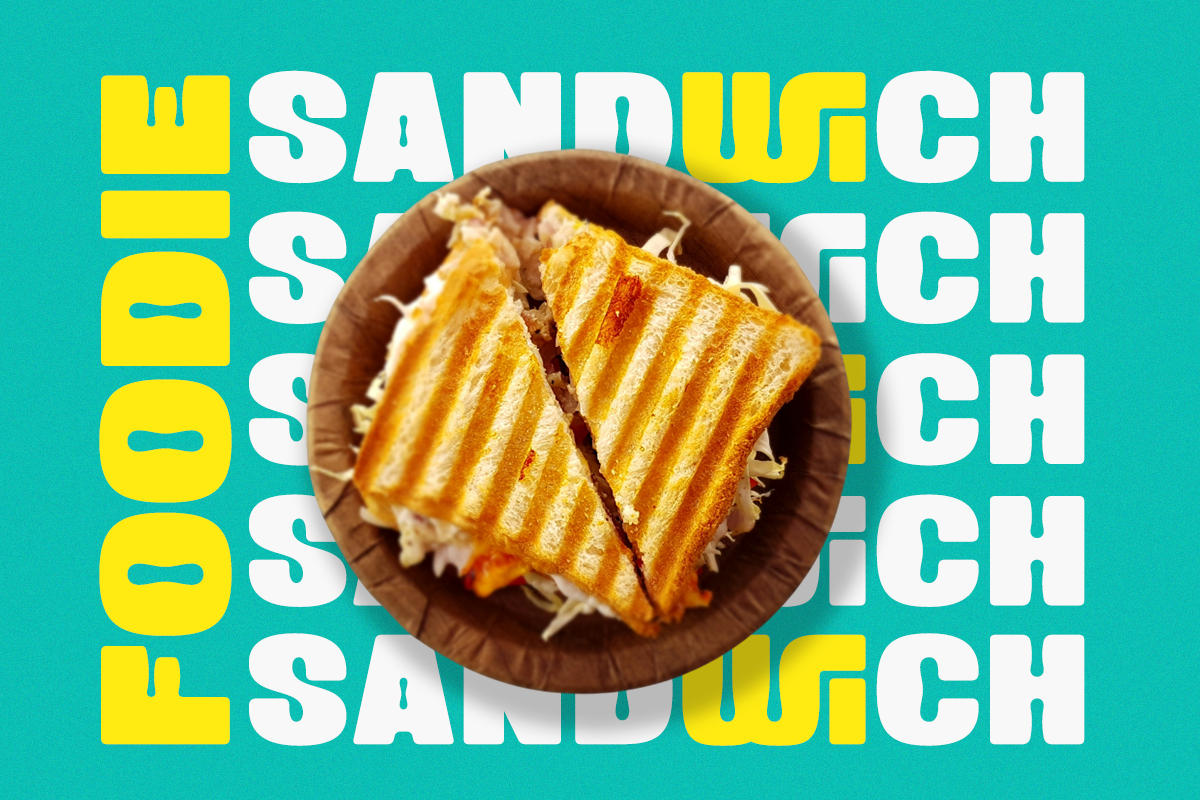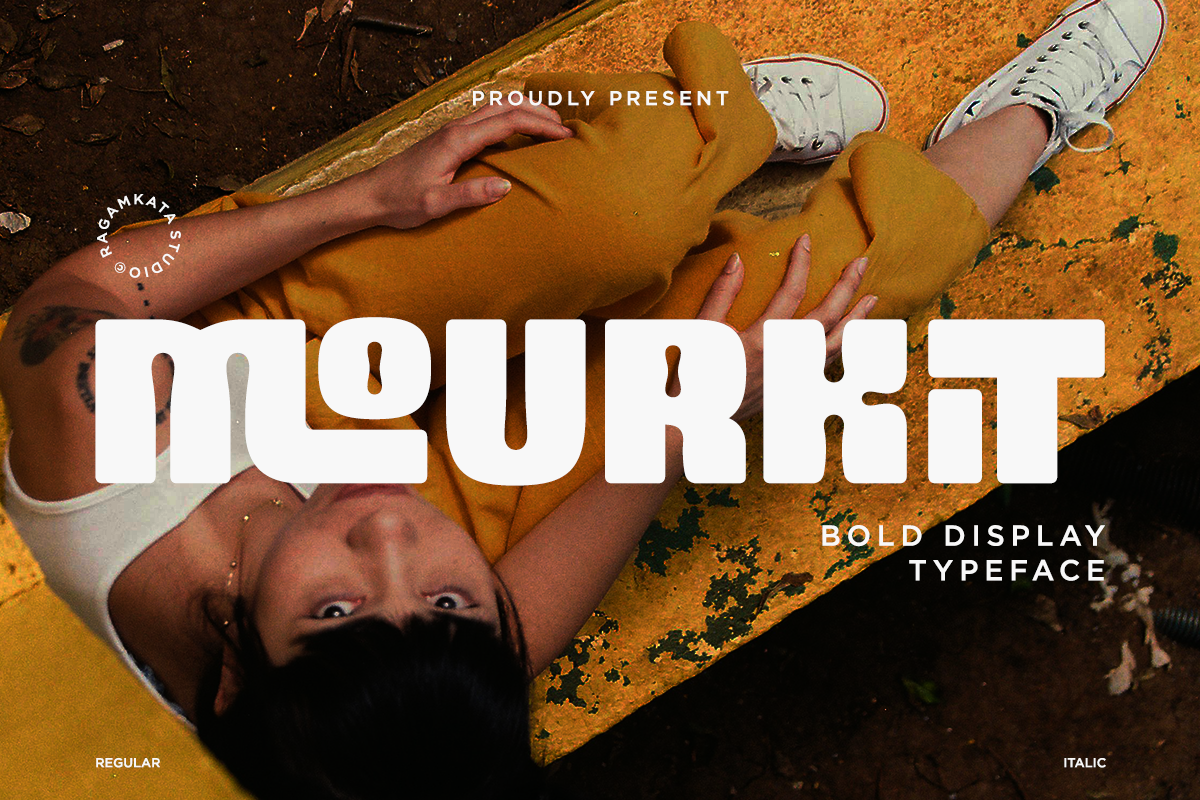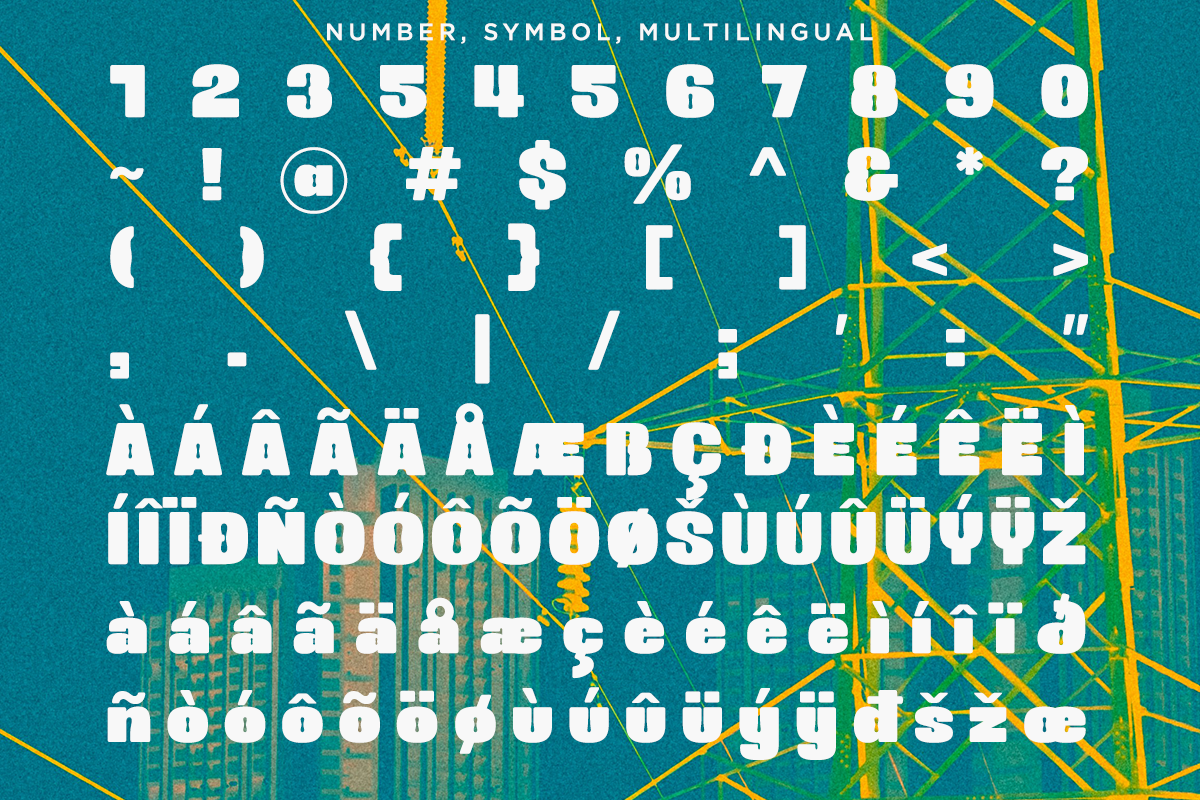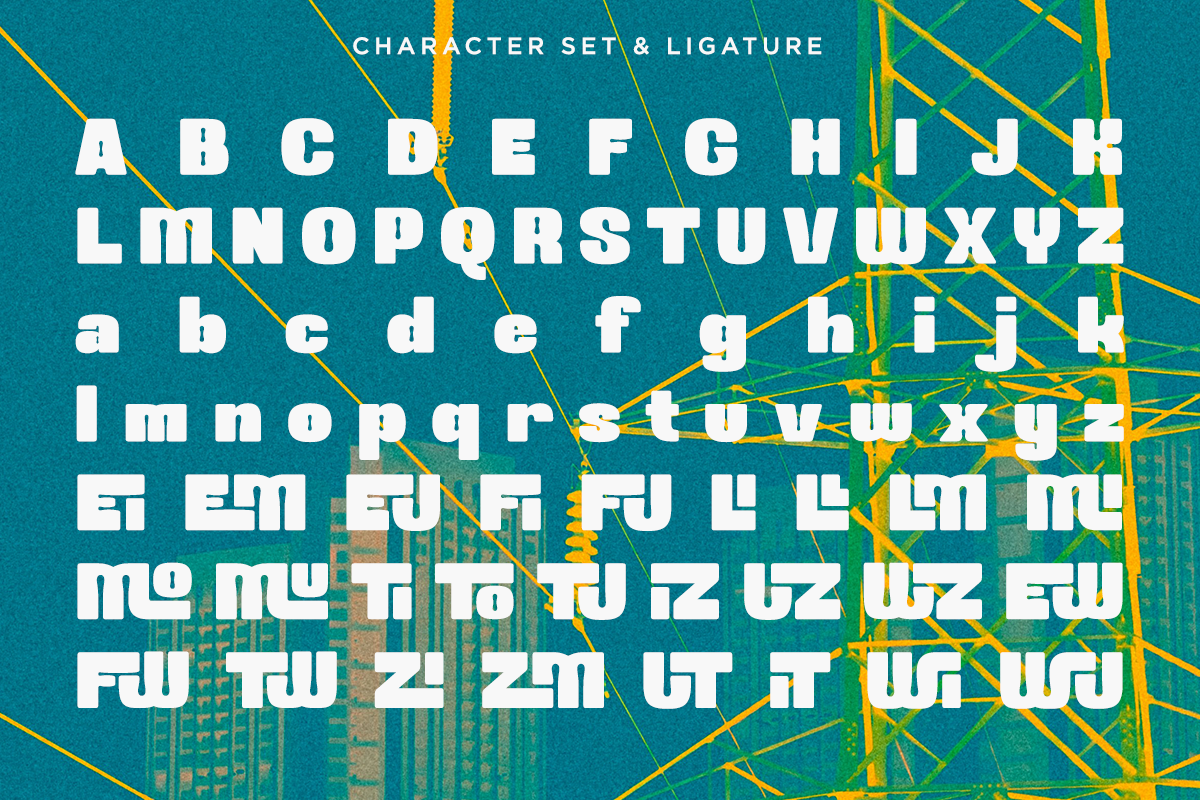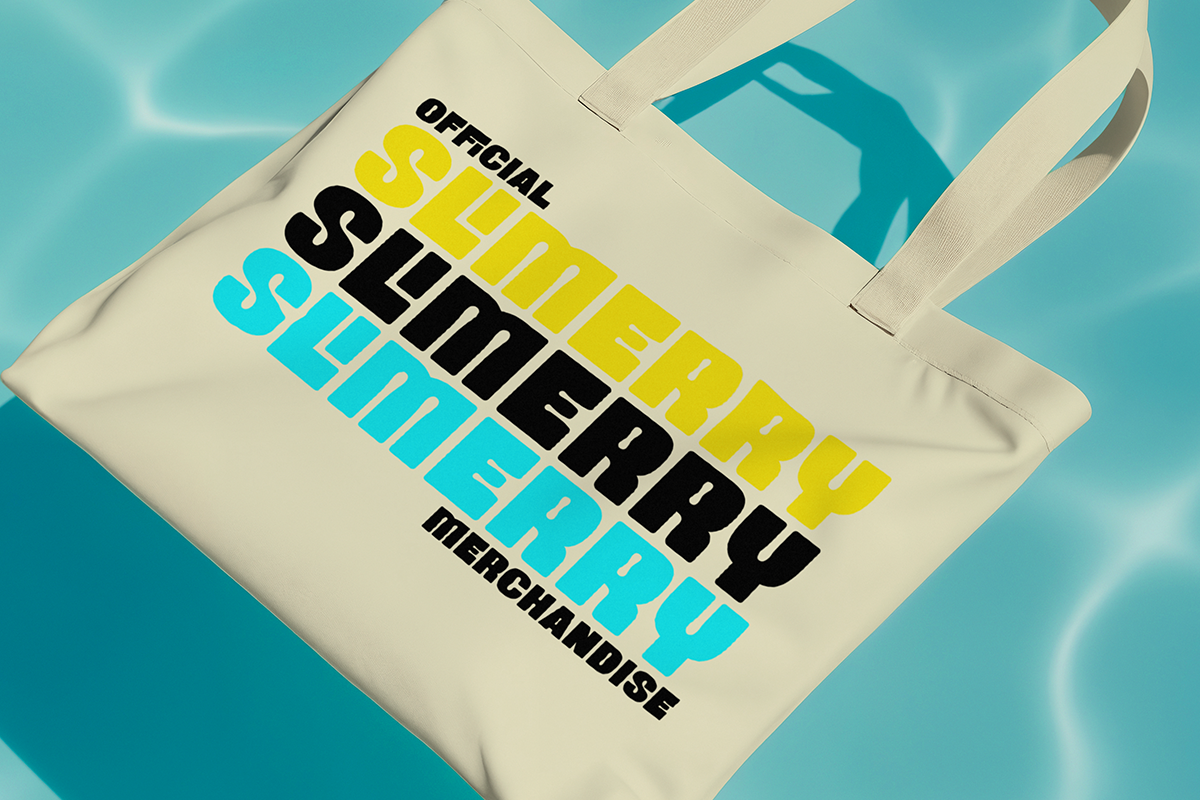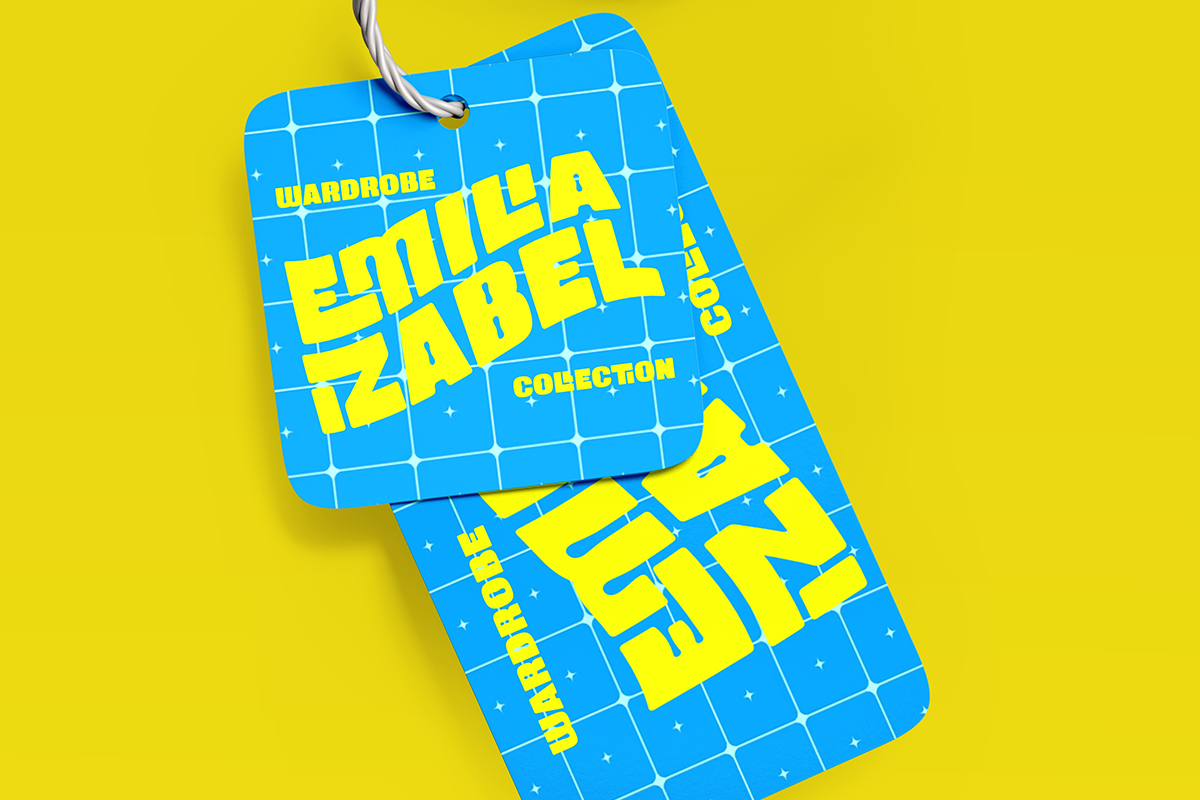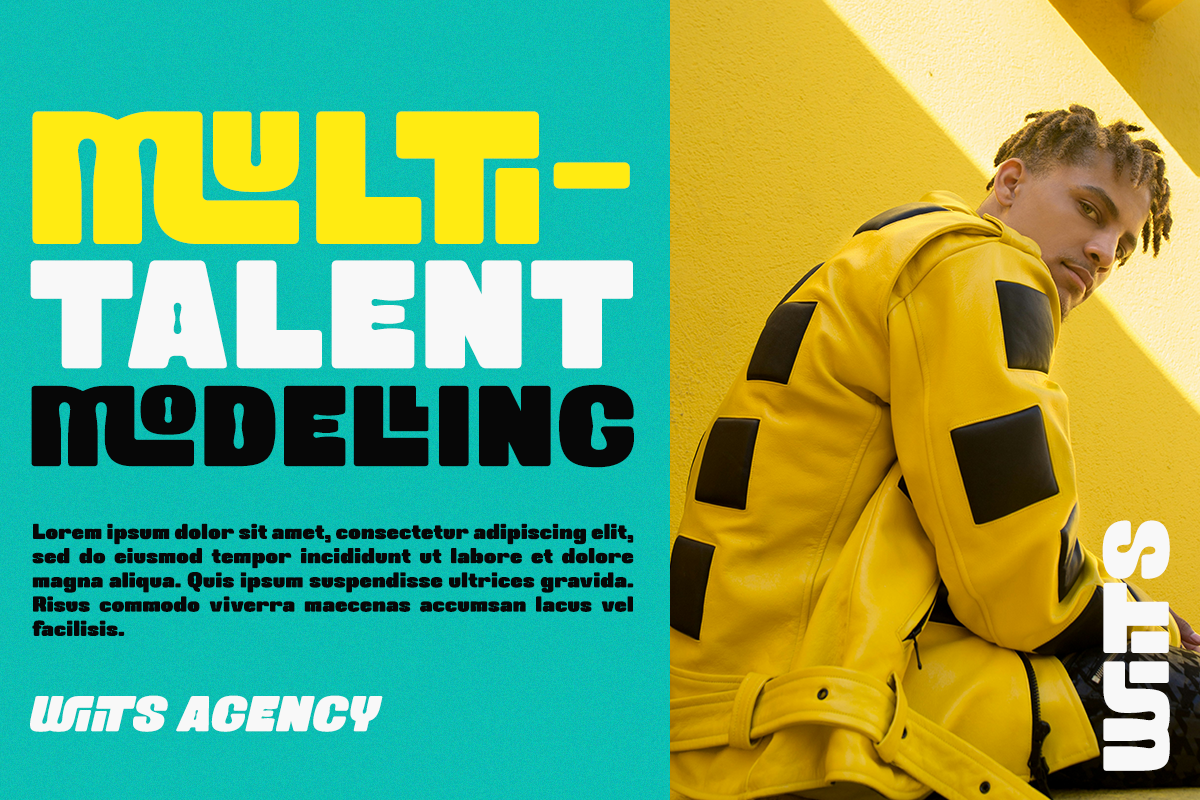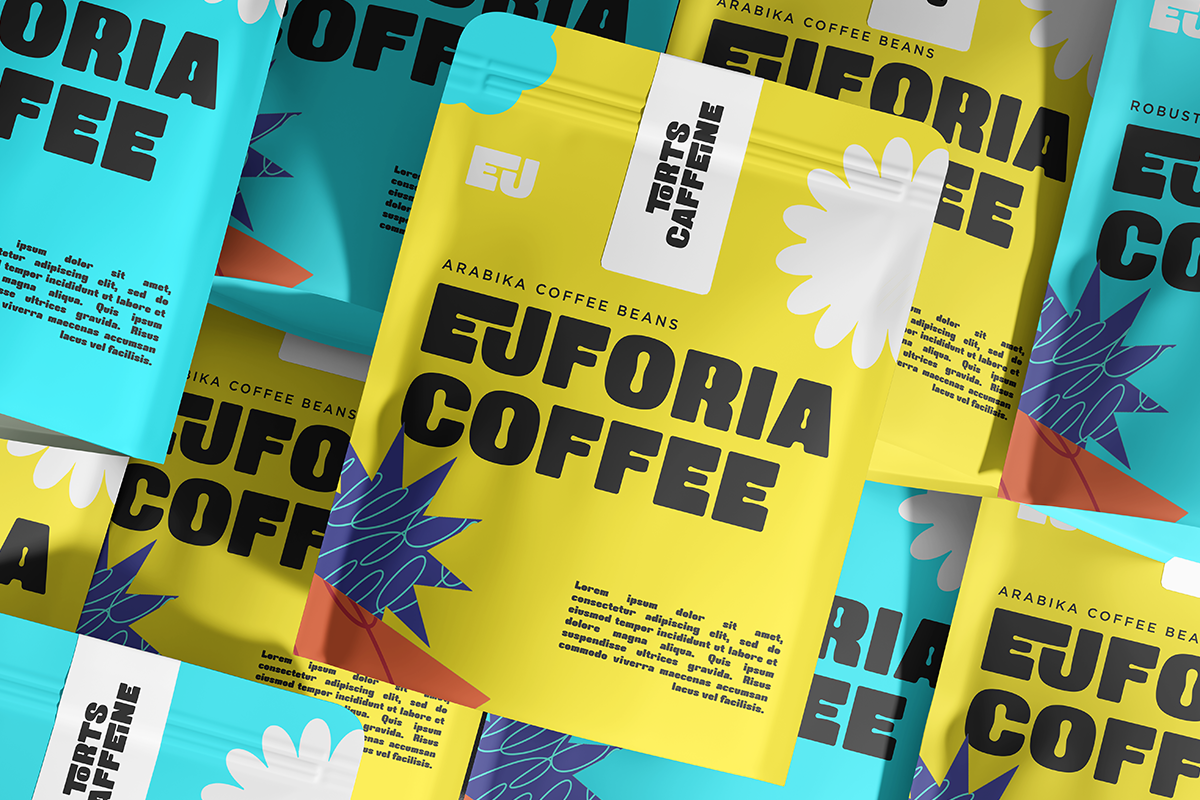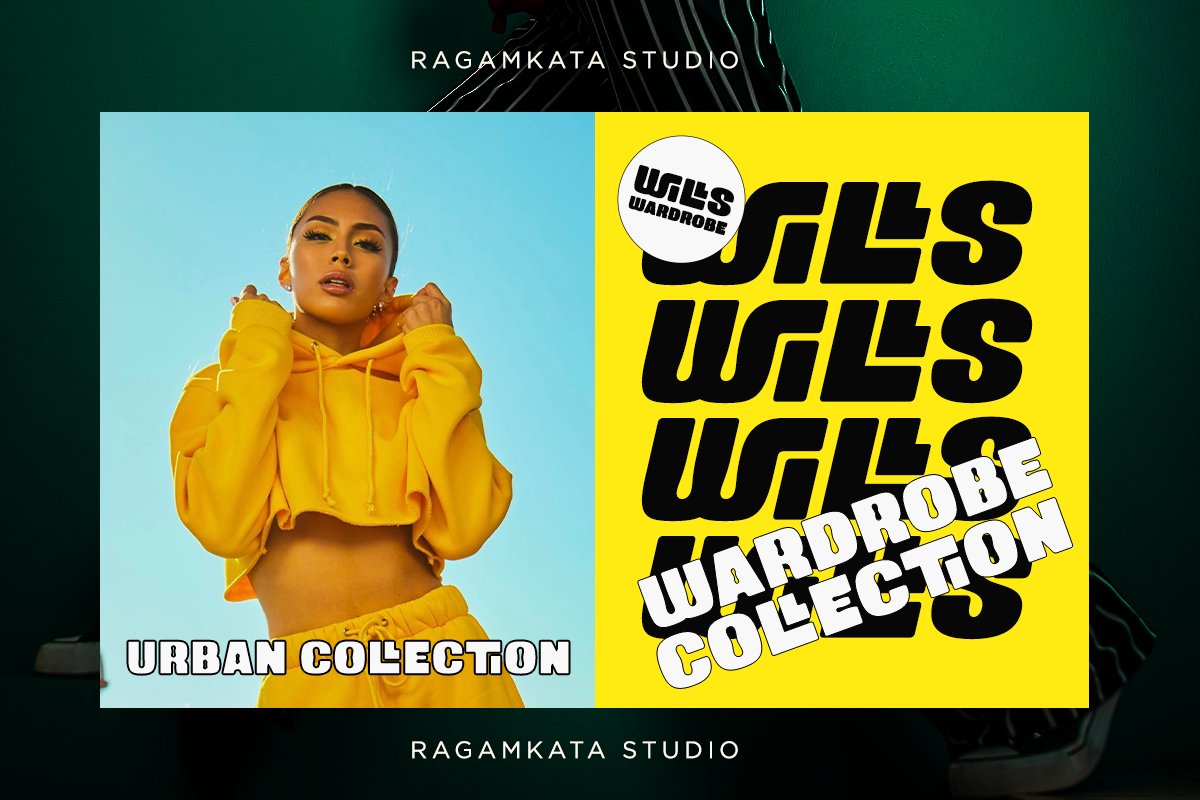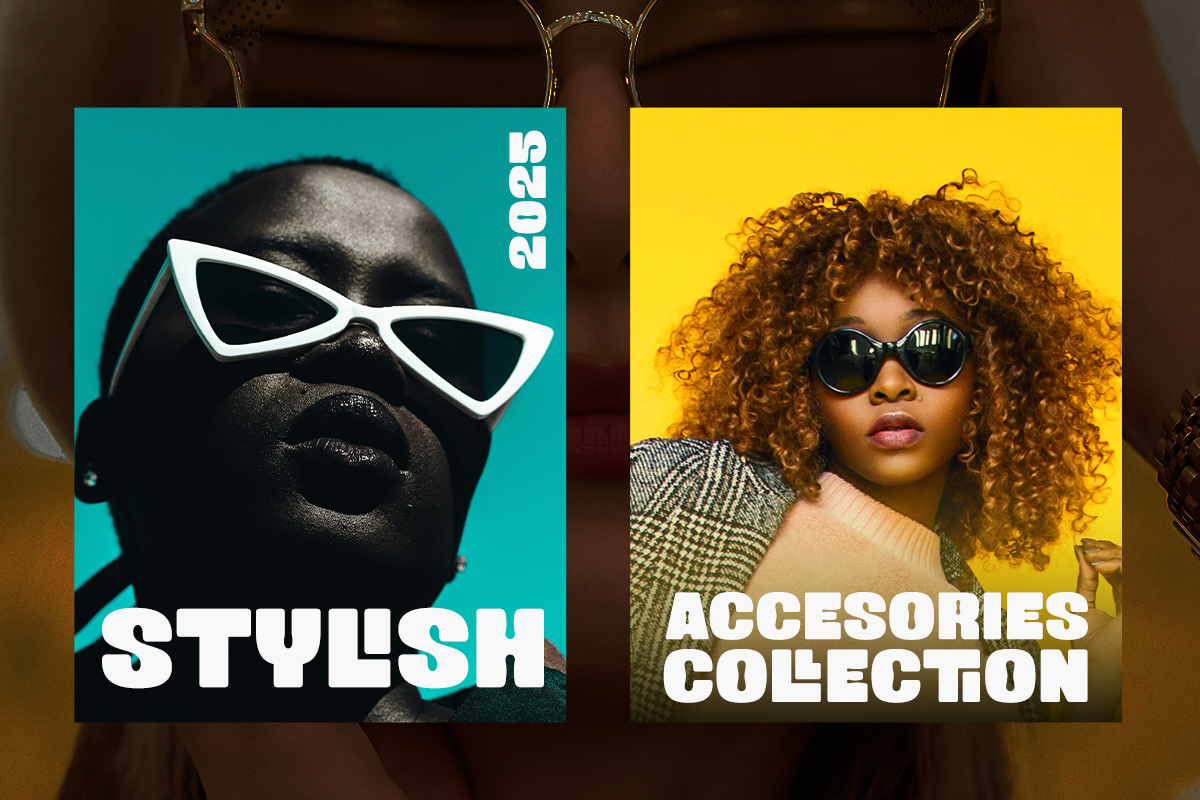
Mourkit - Bold Display Typeface
Mourkit is a bold, chunky ligature font with a strong and striking display style. Its dense, solid letterforms create a modern and confident impression, making it ideal for posters, logos, titles, food designs, or any creative project that aims to appear bold, powerful, and memorable.
- Stylish Ligature
- Uppercase, Lowercase
- Symbol, Number